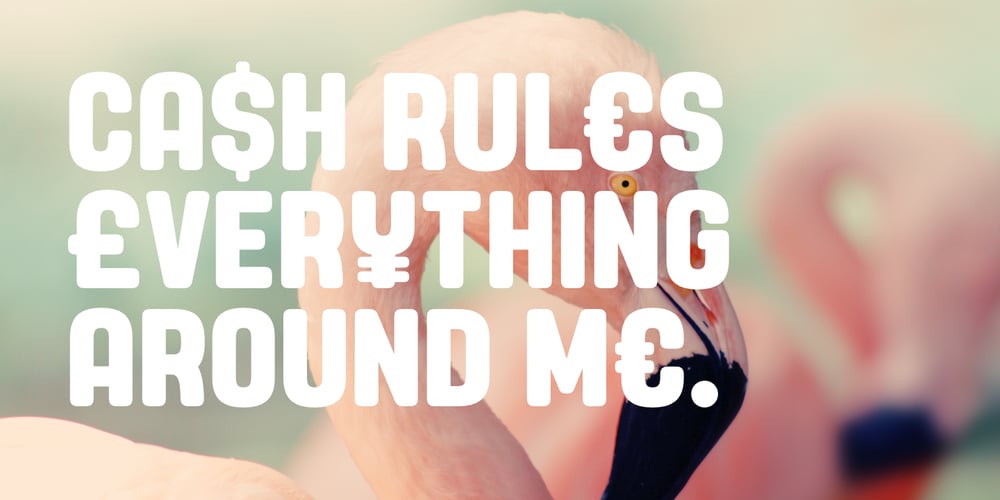
Yoshida Soft Font Family was designed by Dan Jones and published by TypeUnion. Yoshida Soft contains 32 styles and family package options. Yoshida Soft is the cheeky partner in crime to Yoshida Sans. Based on the original sans, we’ve gone heavy with the curves to create a unique font that again comes in 2 widths and 8 weights and which has a multitude of uses from branding to posters to digital applications. Have fun with this big softy.